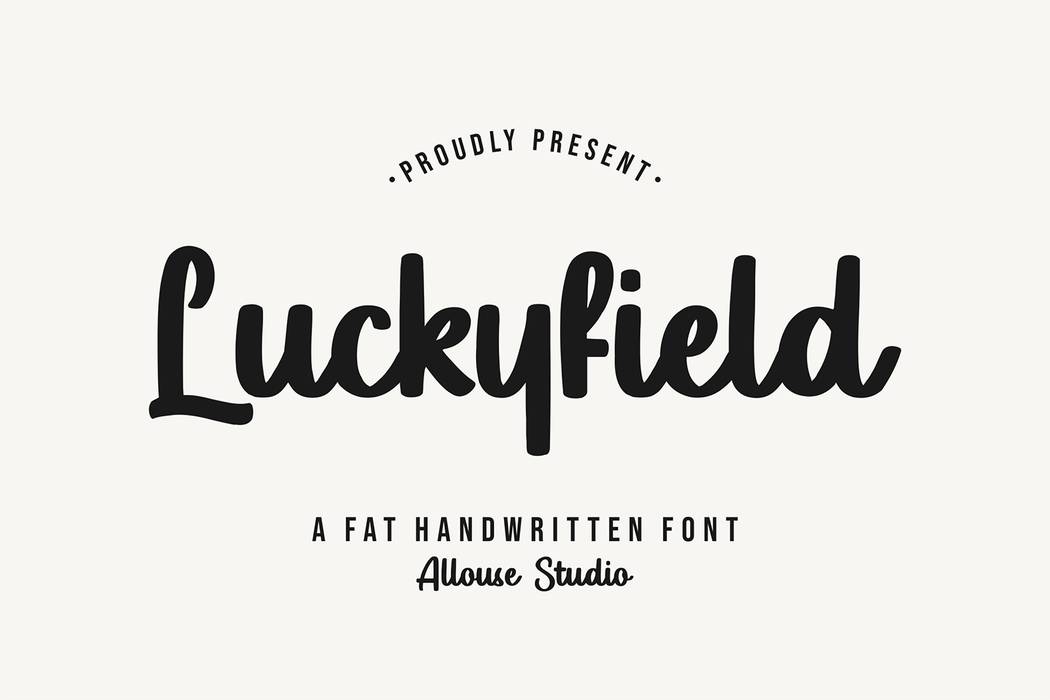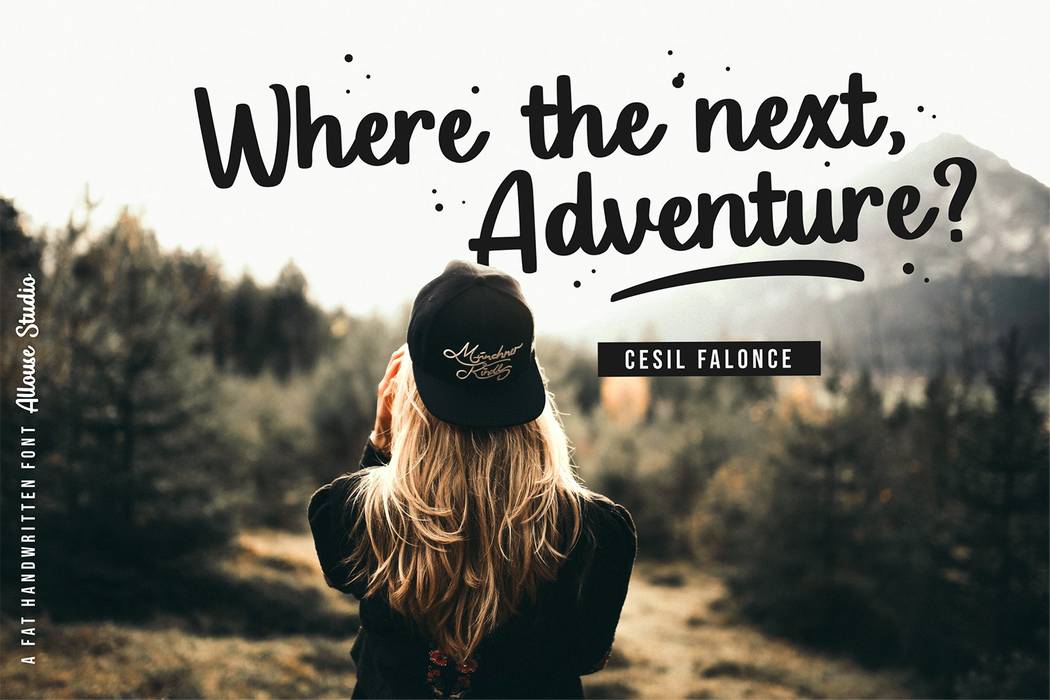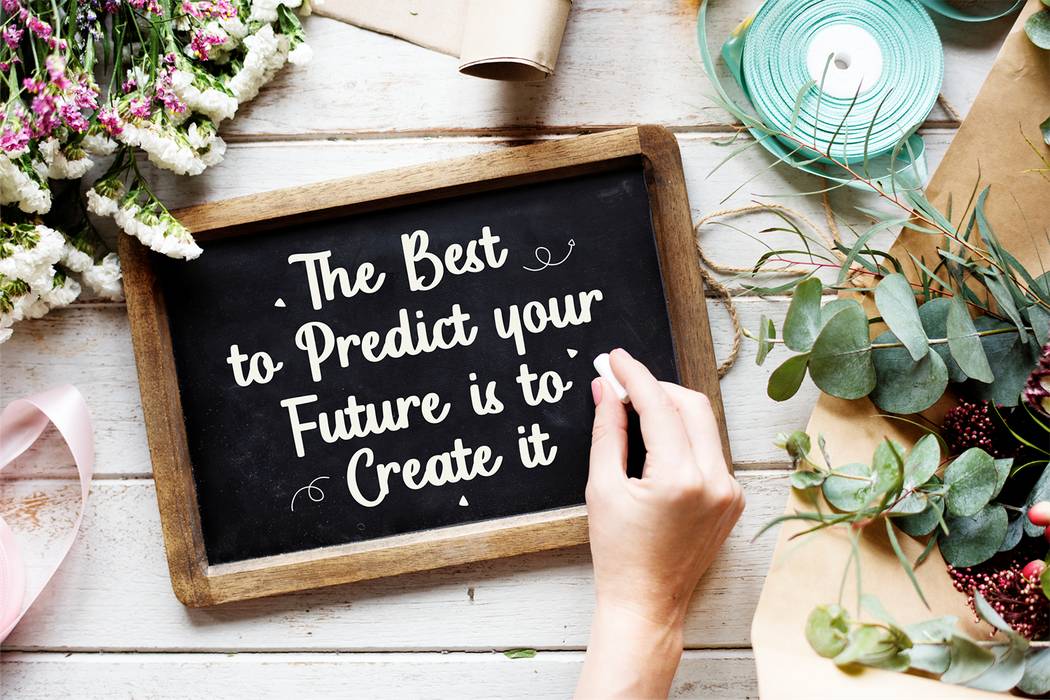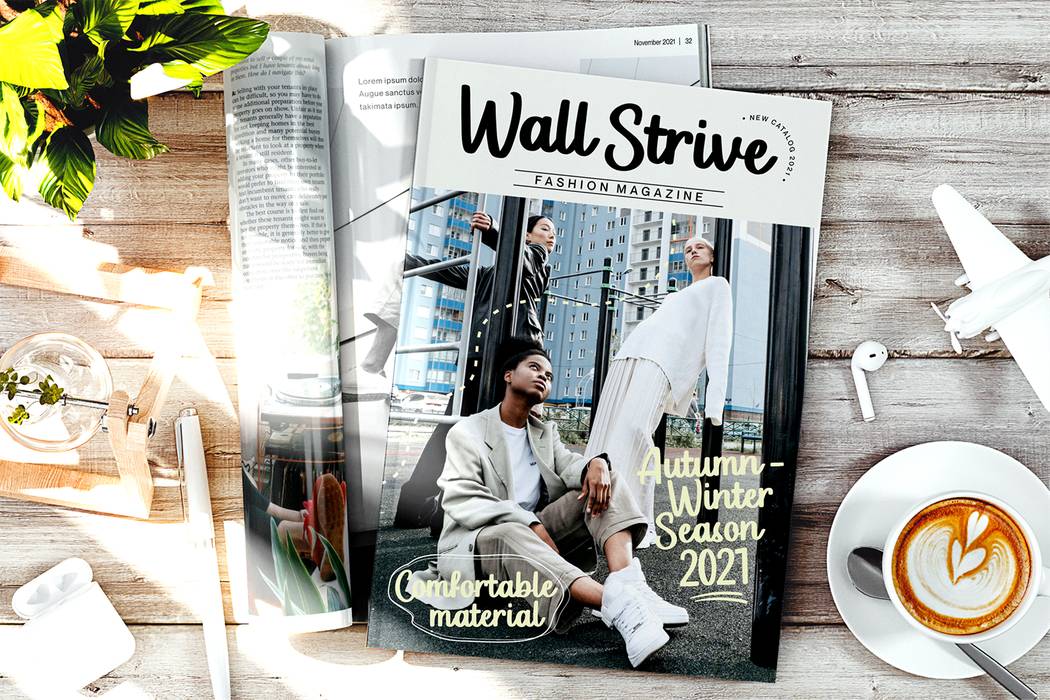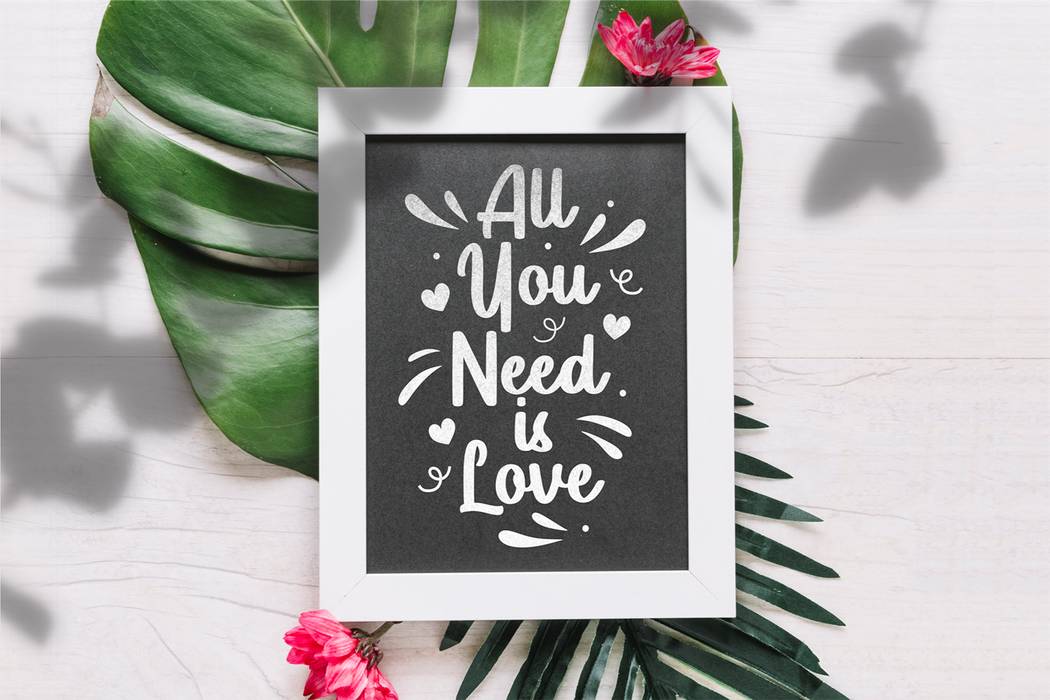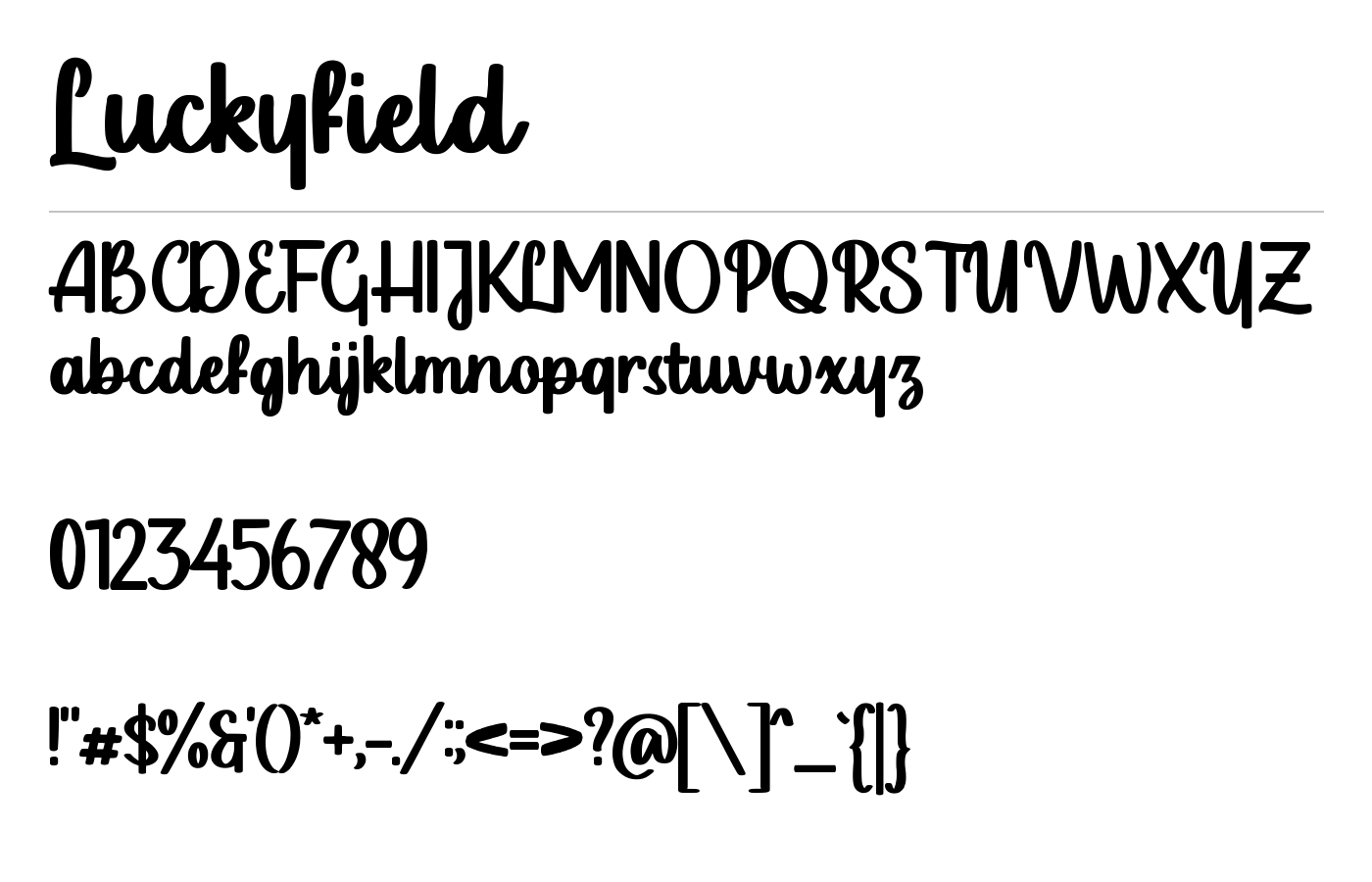
Luckyfield is a playful and modern script font with a bold yet friendly character, featuring smooth, rounded strokes and a casual handwritten feel. Its upright letterforms, moderate contrast, and distinctive quirks give it a lively personality, making it well suited for creative branding, packaging, and eye-catching headlines where a warm, approachable vibe is desired. This font works beautifully to add charm and uniqueness without sacrificing readability.
Luckyfield Font
About Luckyfield Font